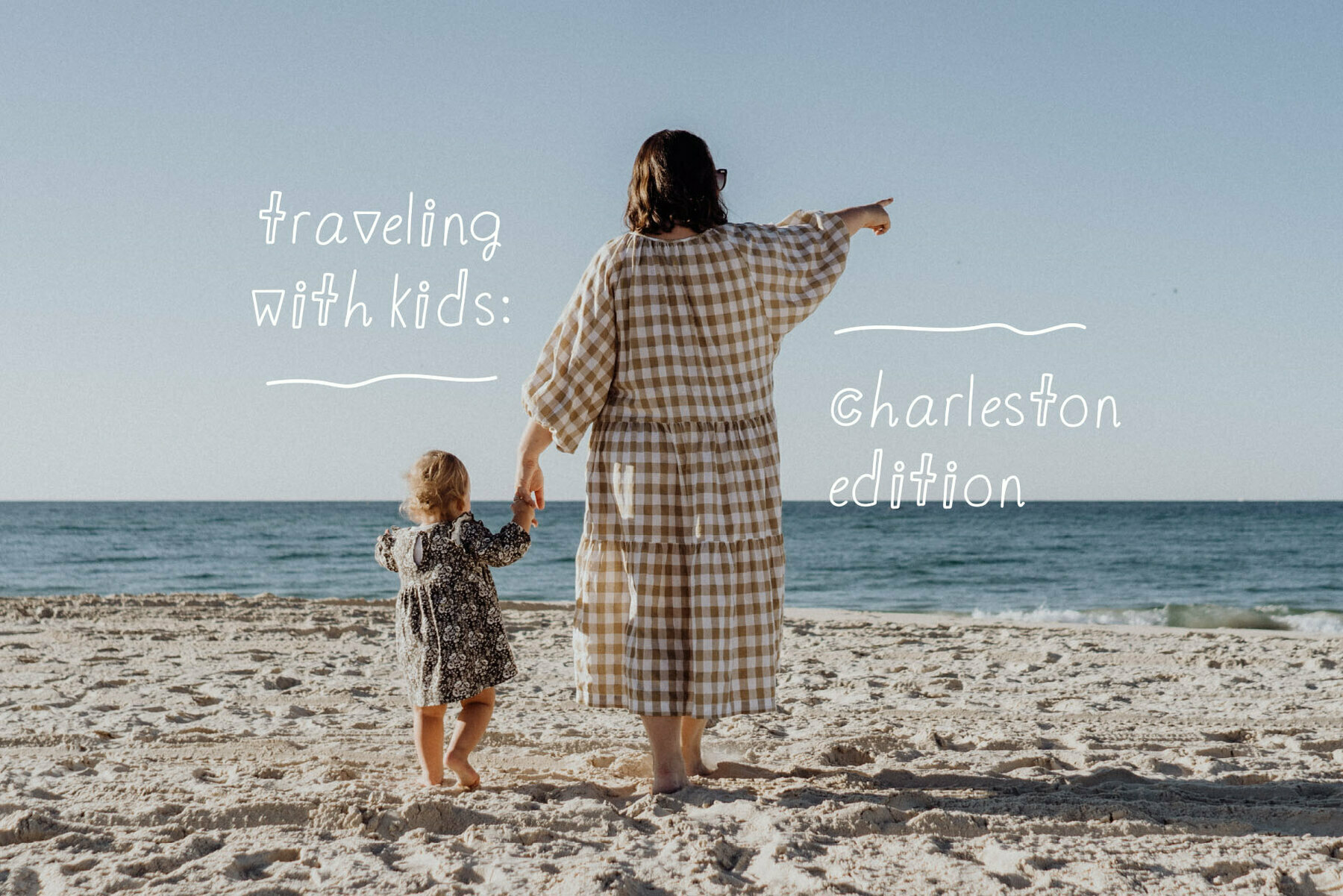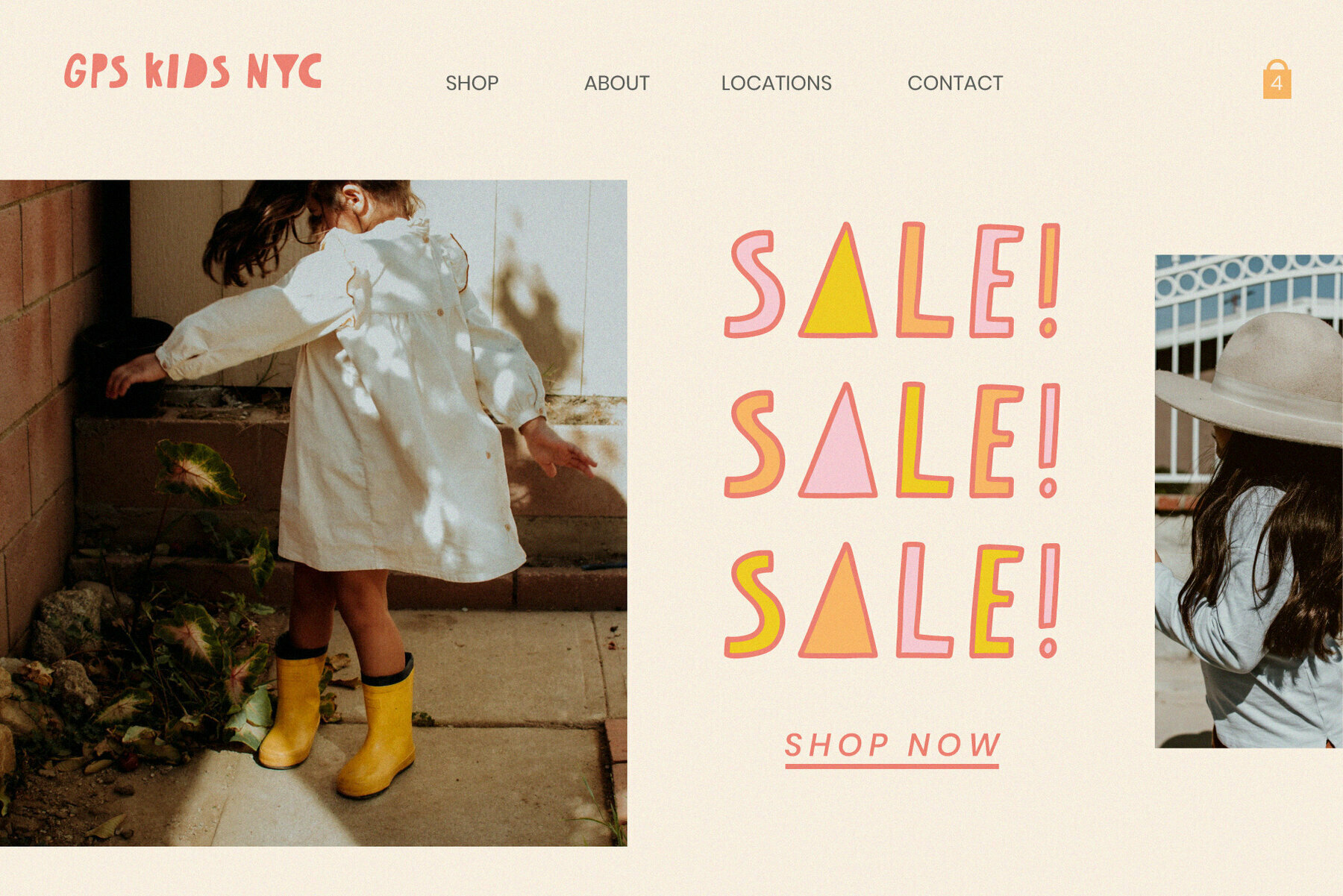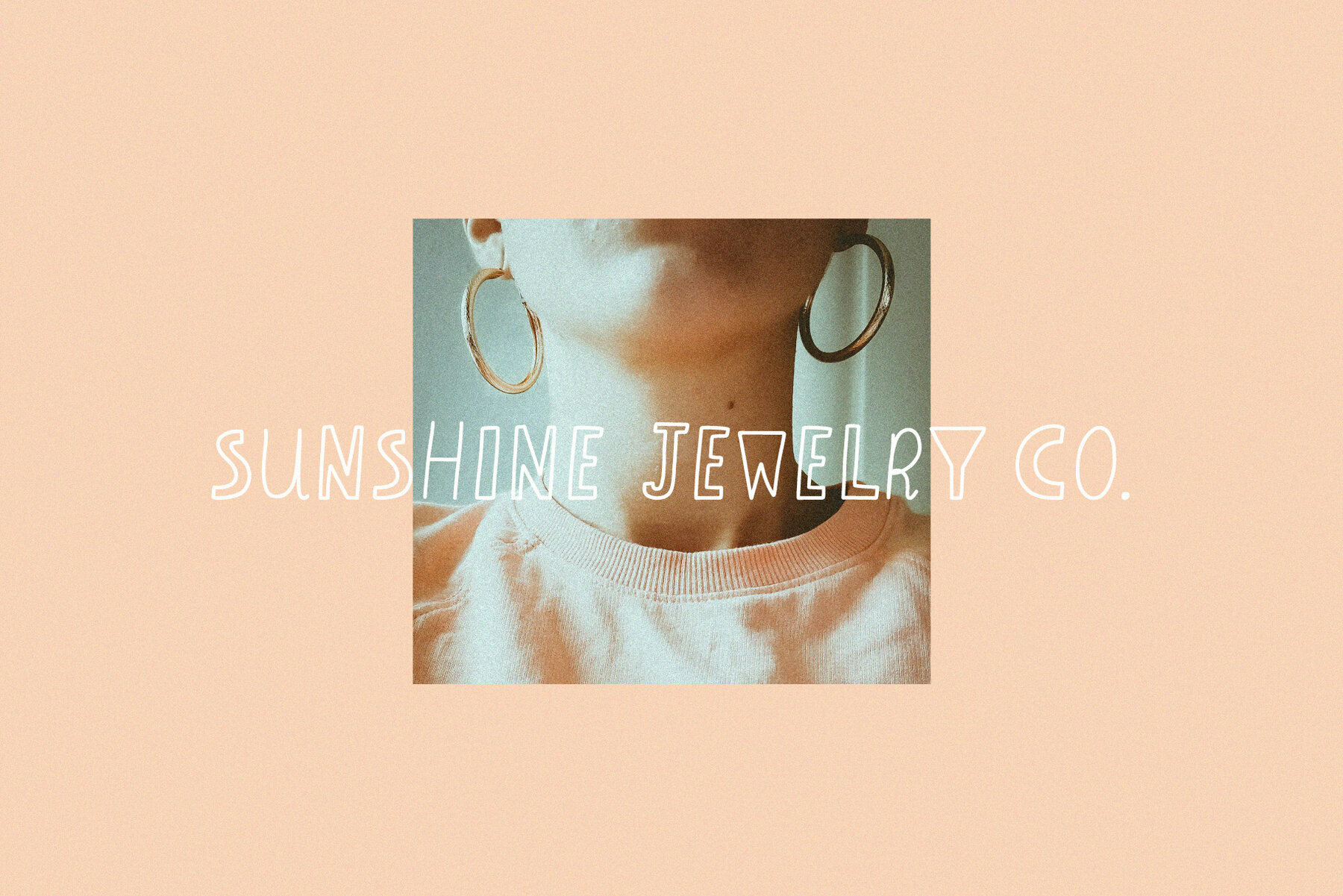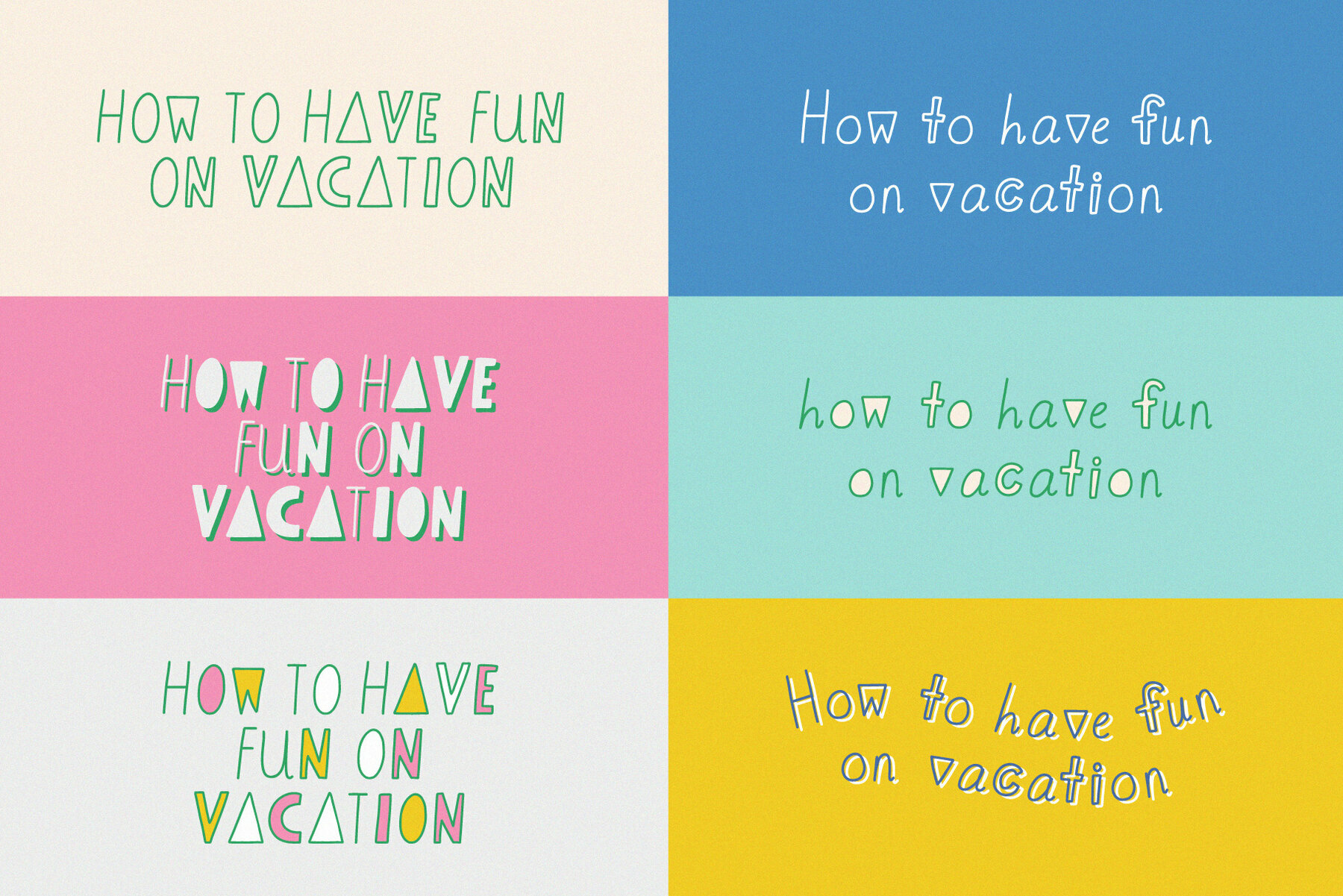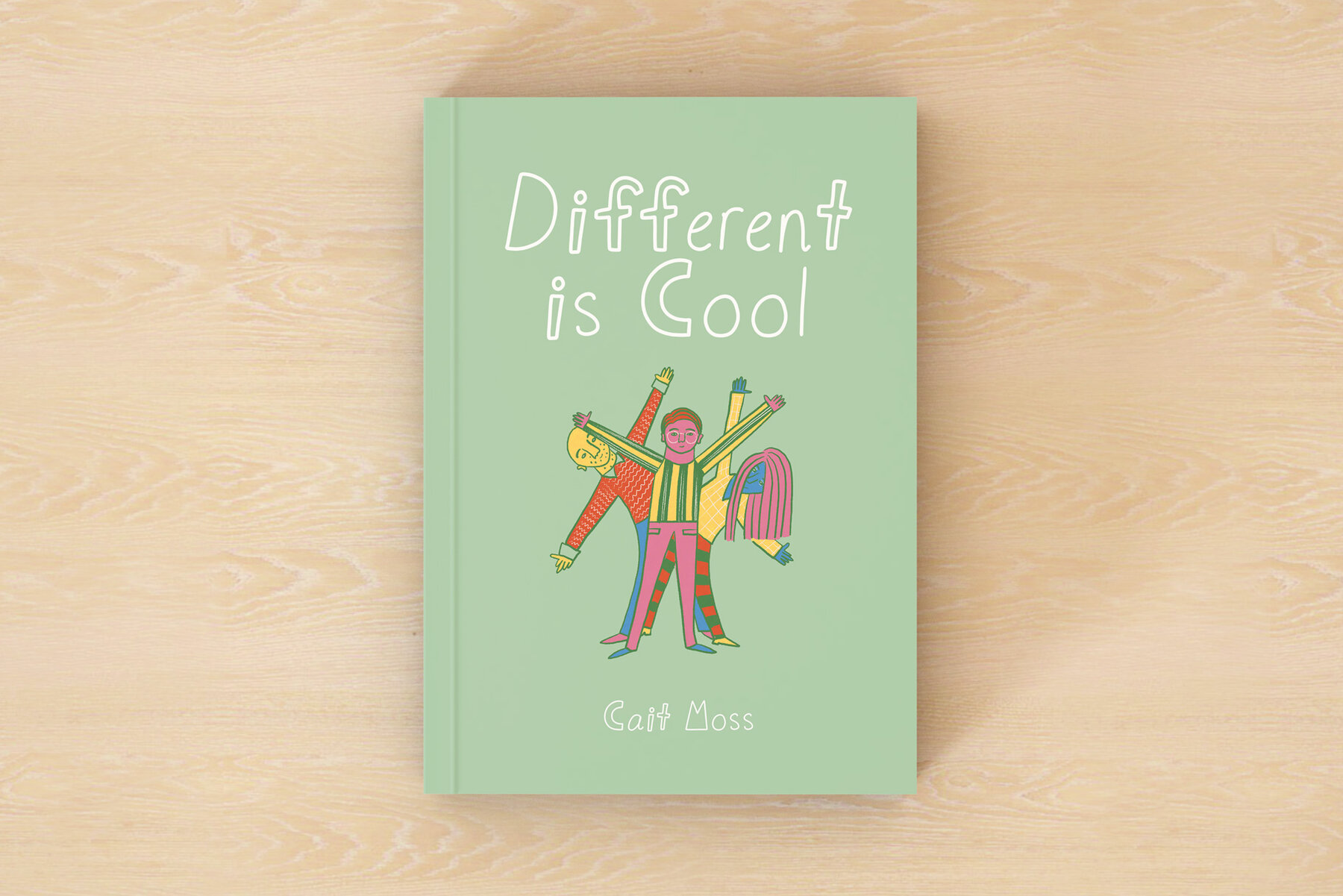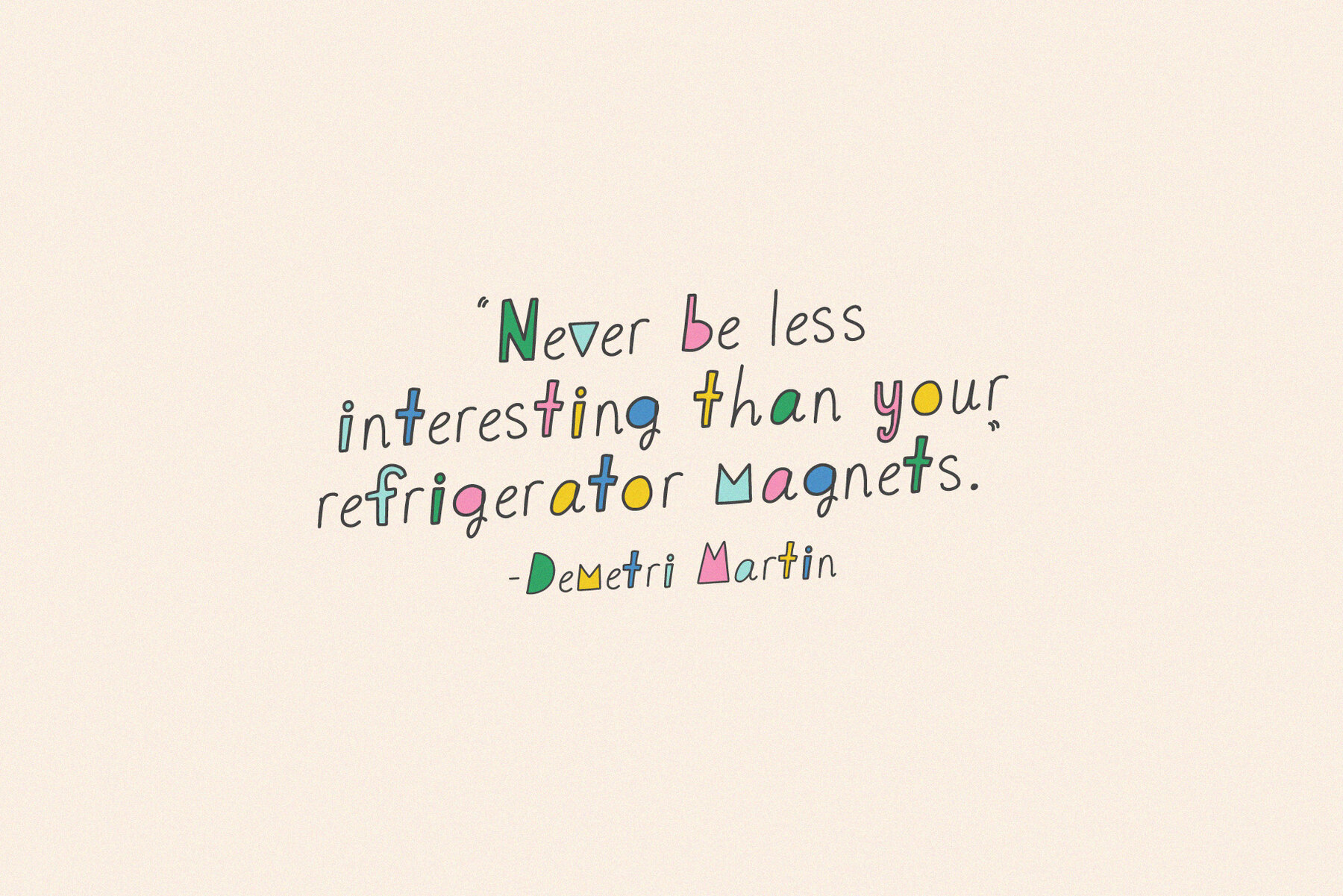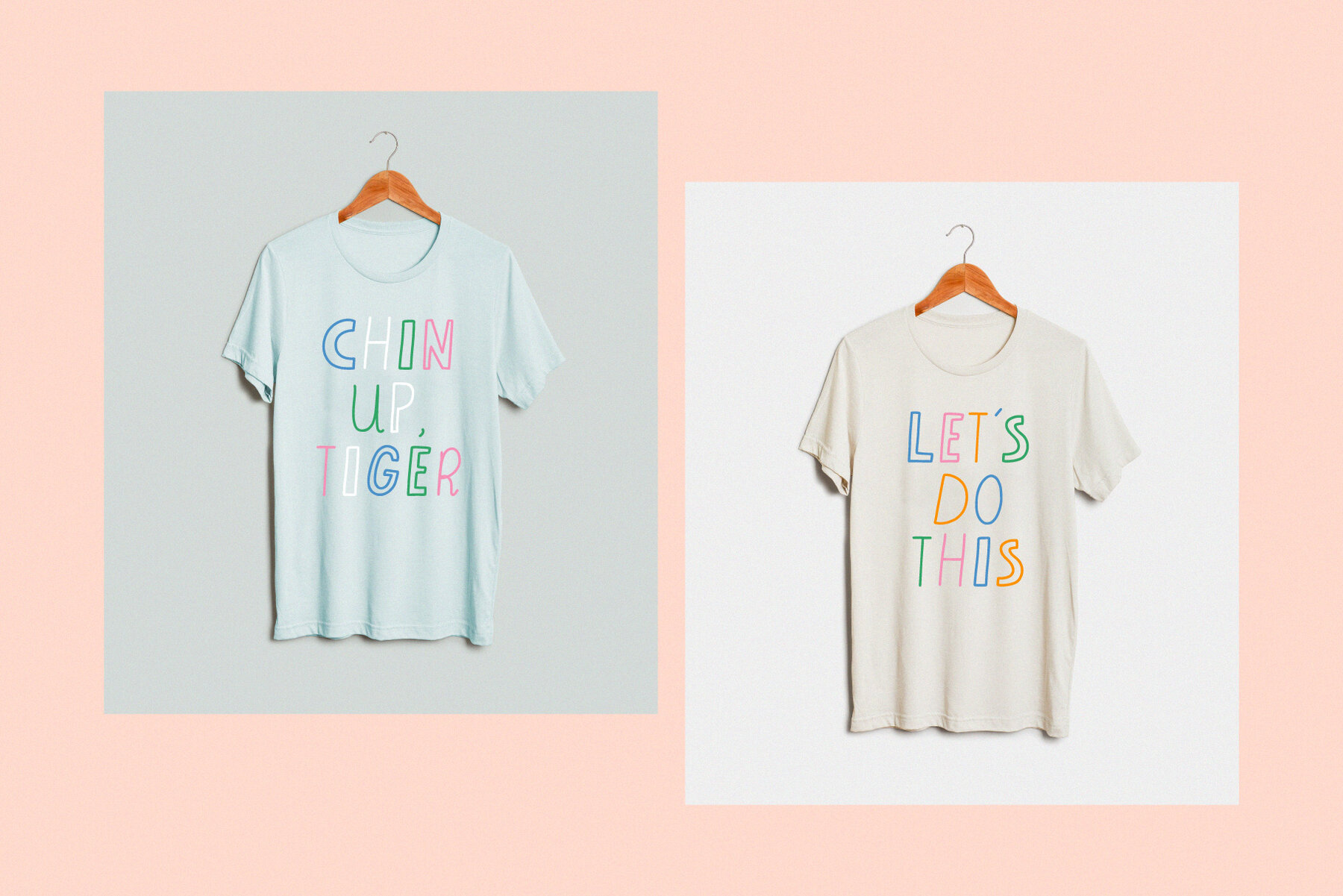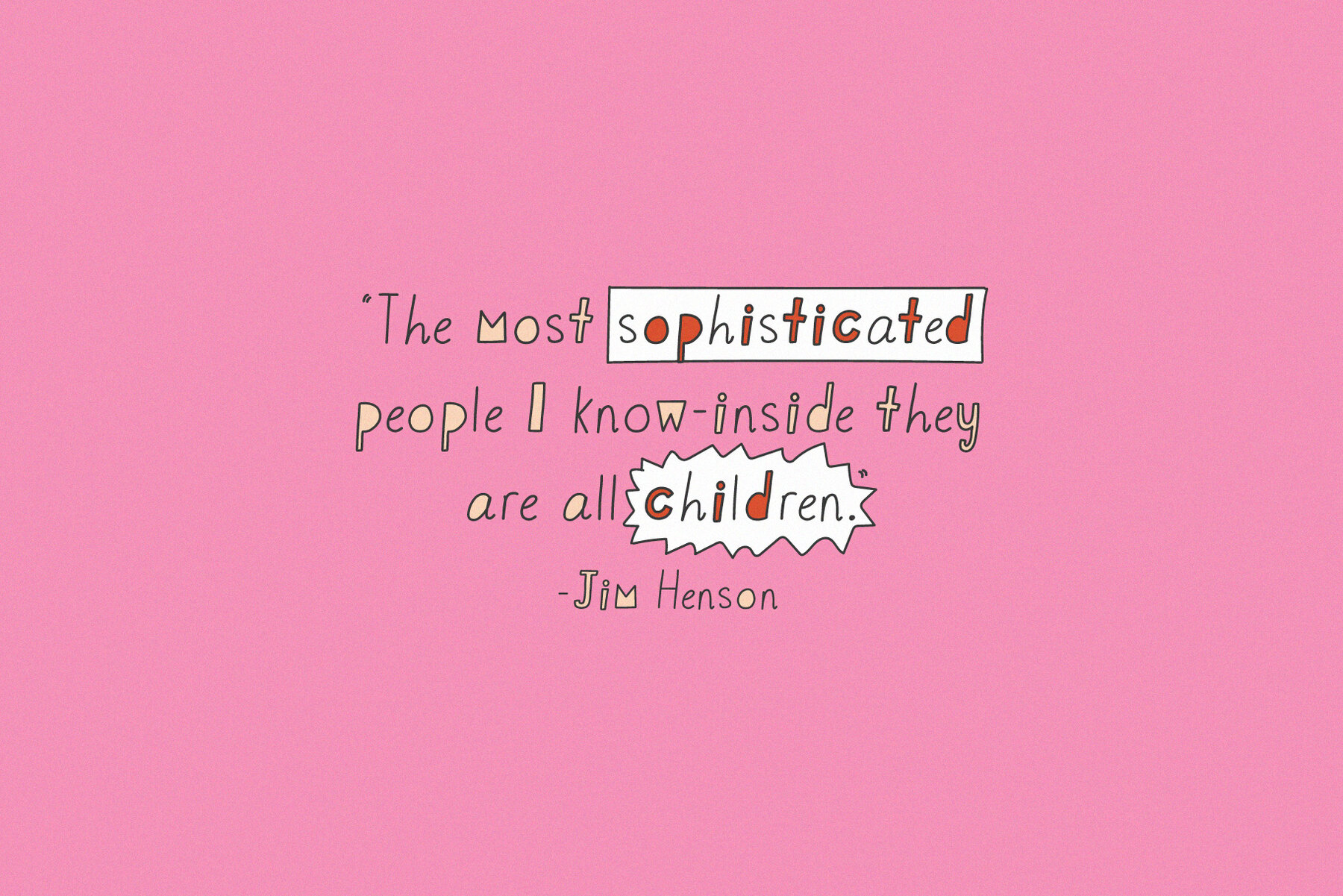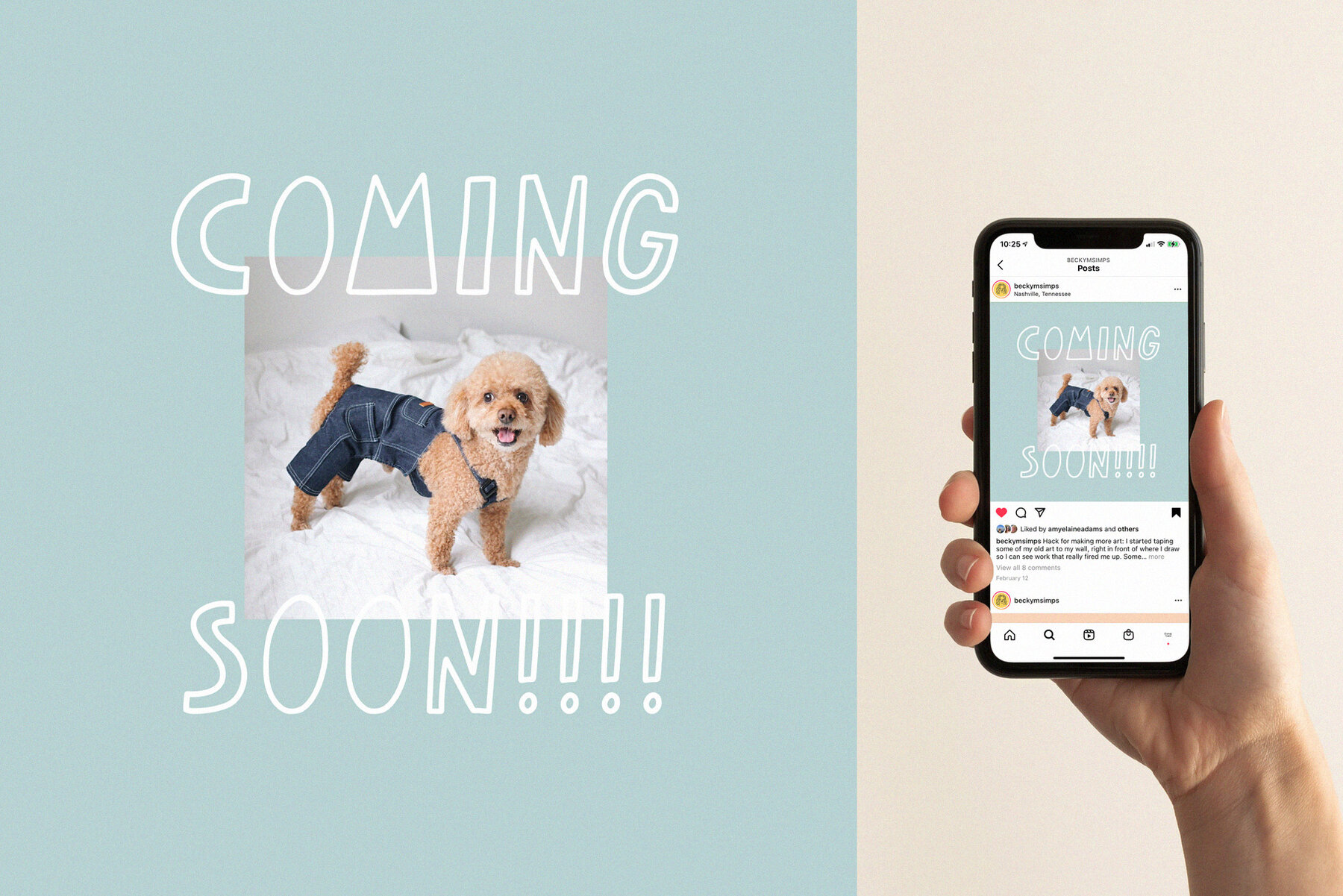
Demetri Font
Demetri Regular
Demetri is a charming, playful, hand-lettered font. It's great for children's art, or any adult who likes to have fun. Perfect for display type and pull quotes. In fact, I first created it for a page quoting Demetri Martin in my book, THE ROOMMATE BOOK. This cute, quirky font is highly recommended for headers, blog posts, children's products, Instagram quotes, editorial work, book covers, baby shower invites, logos and so much more.